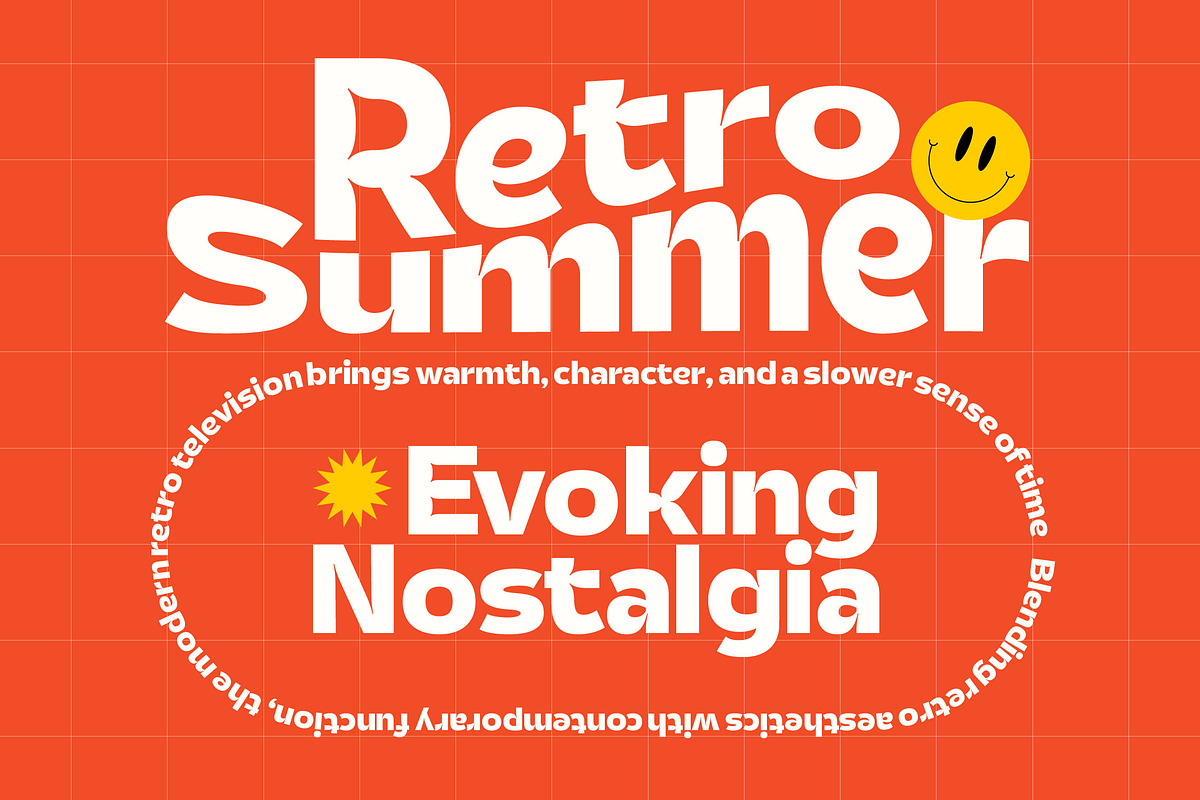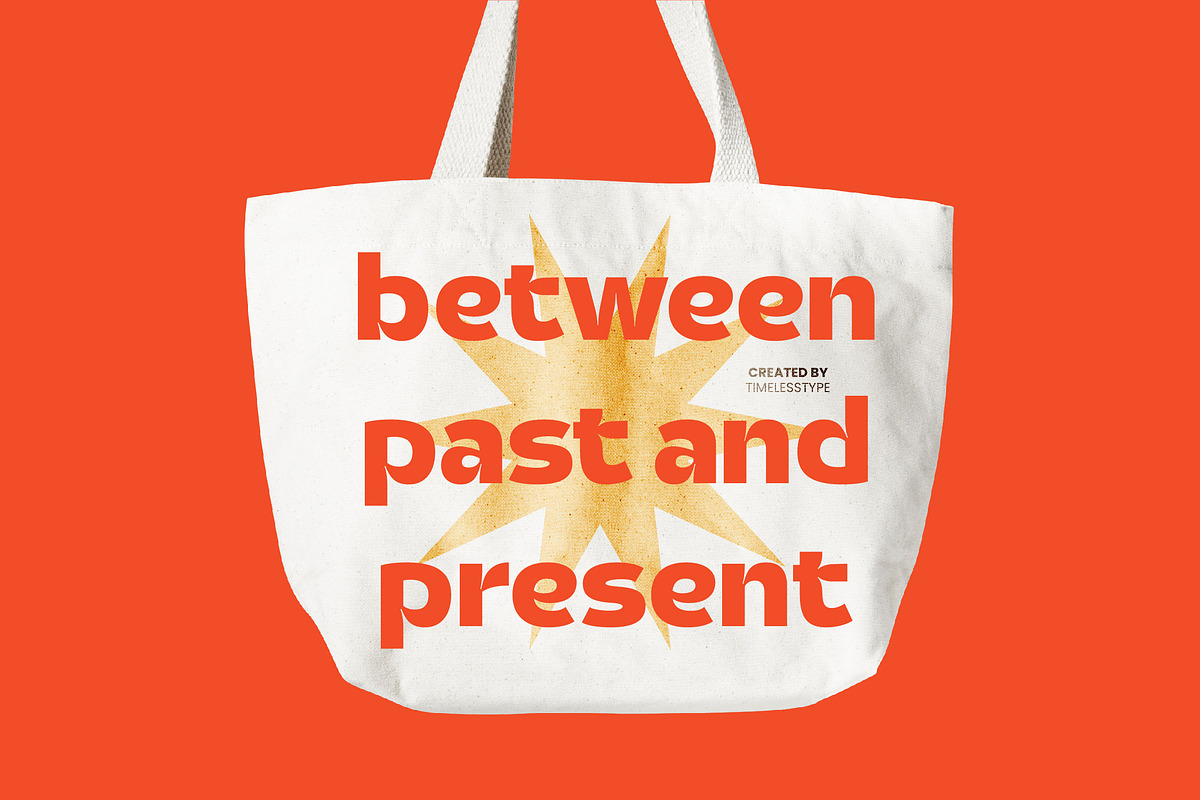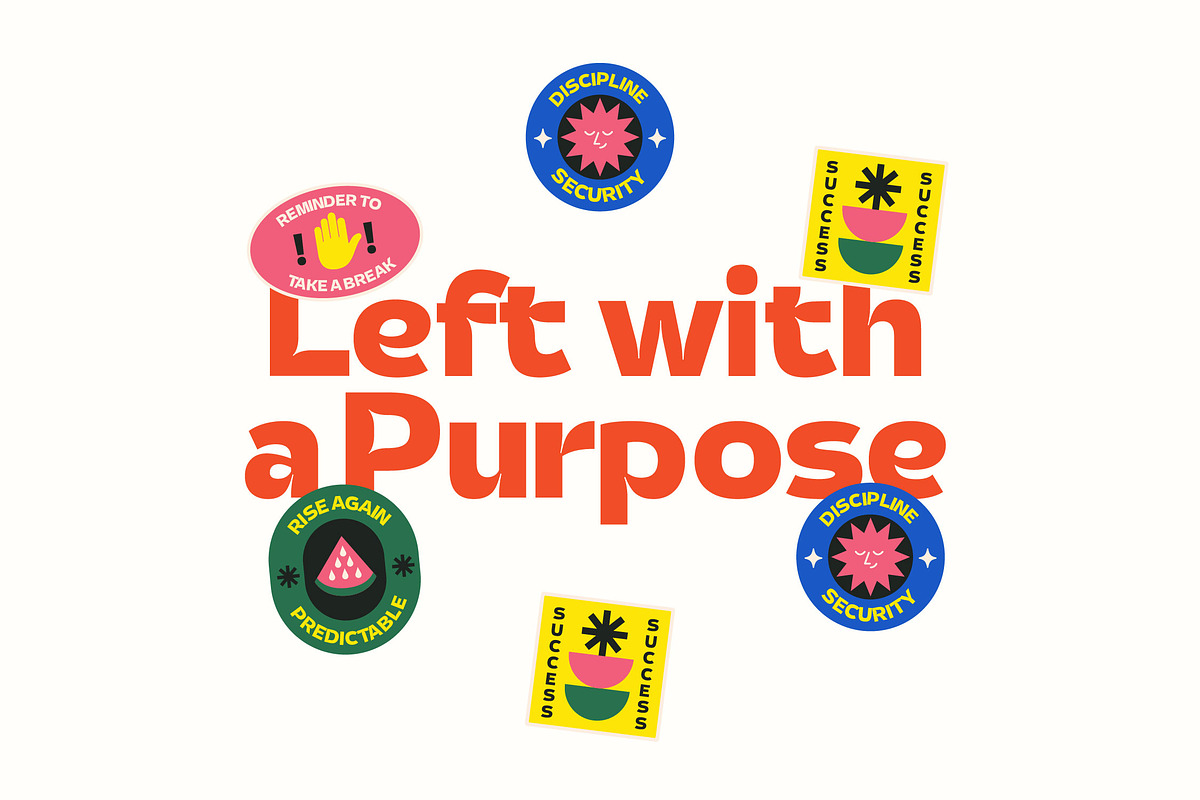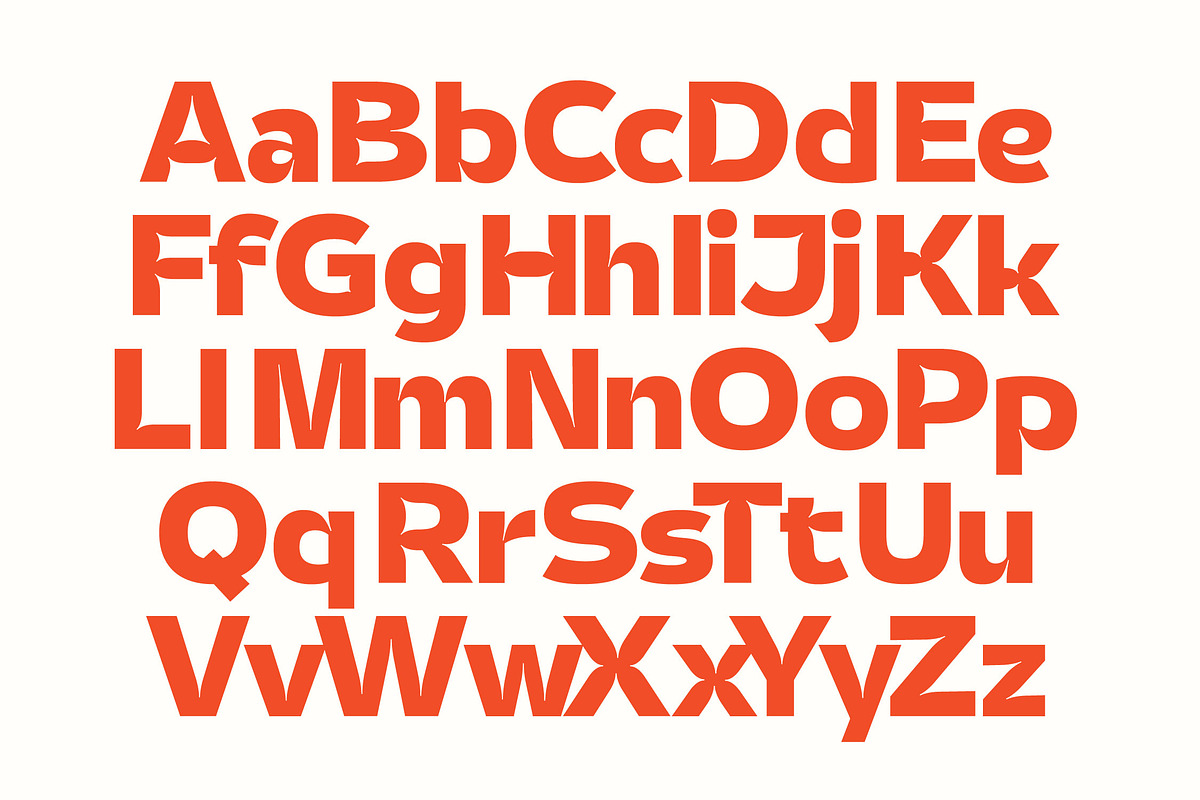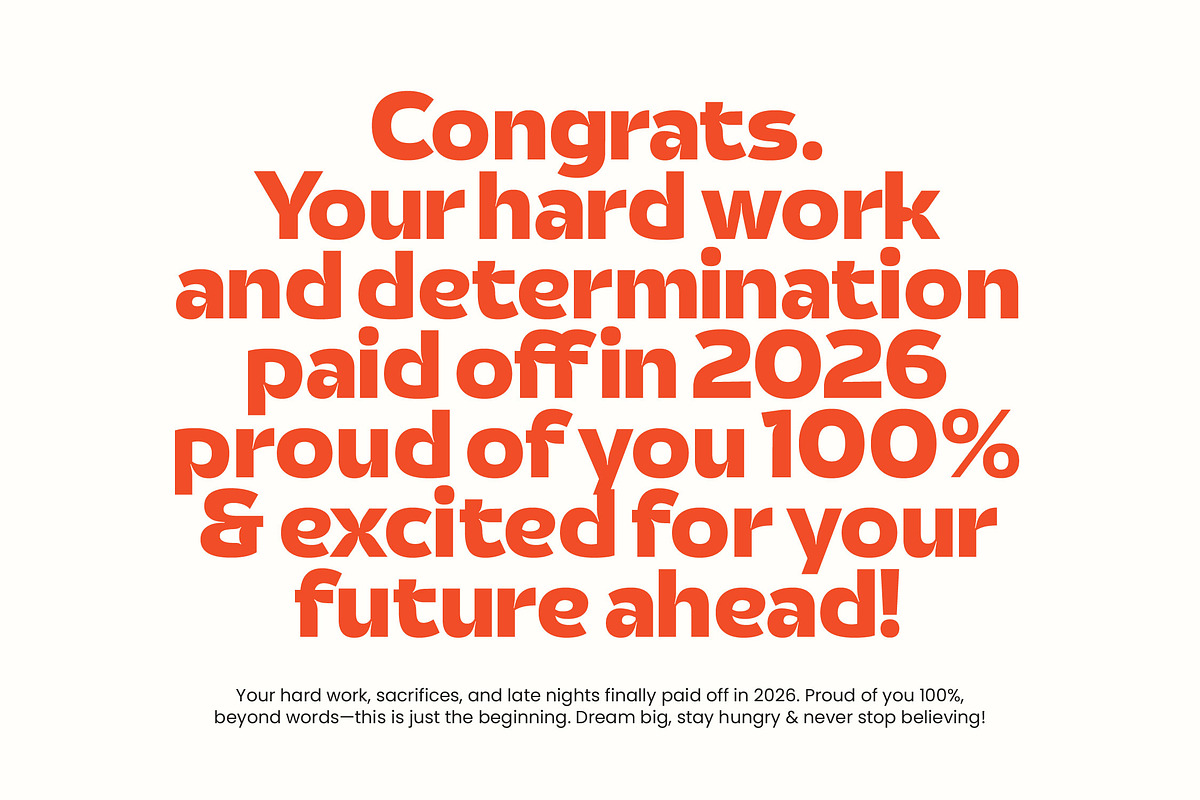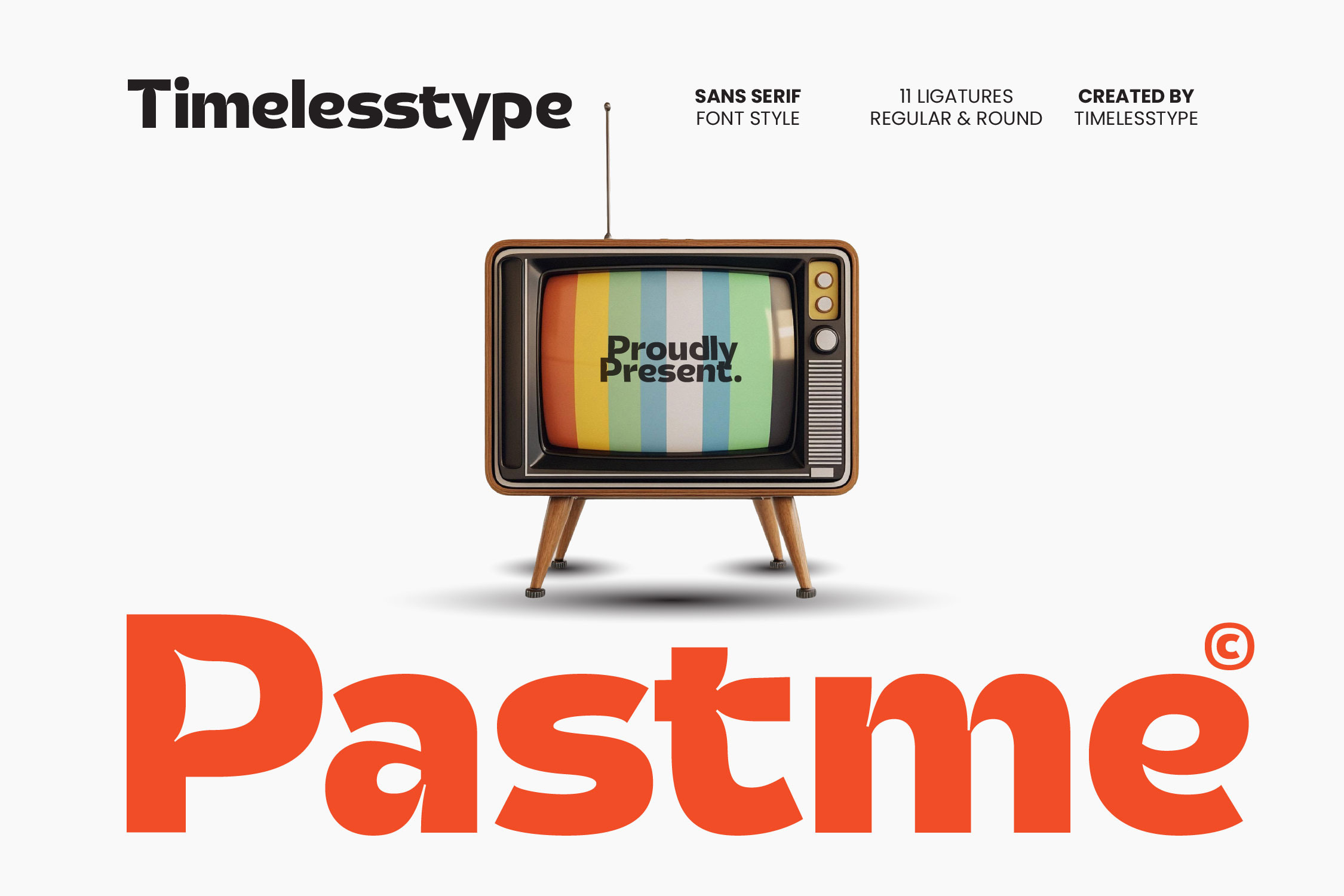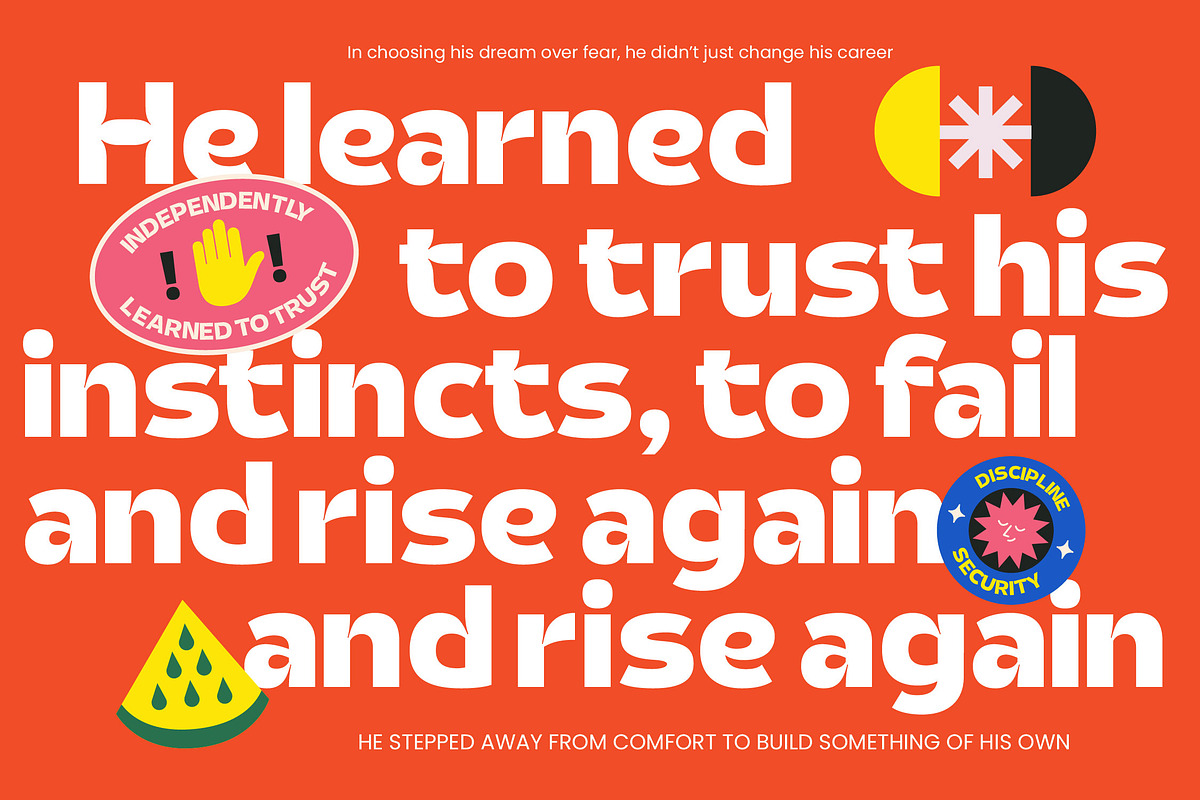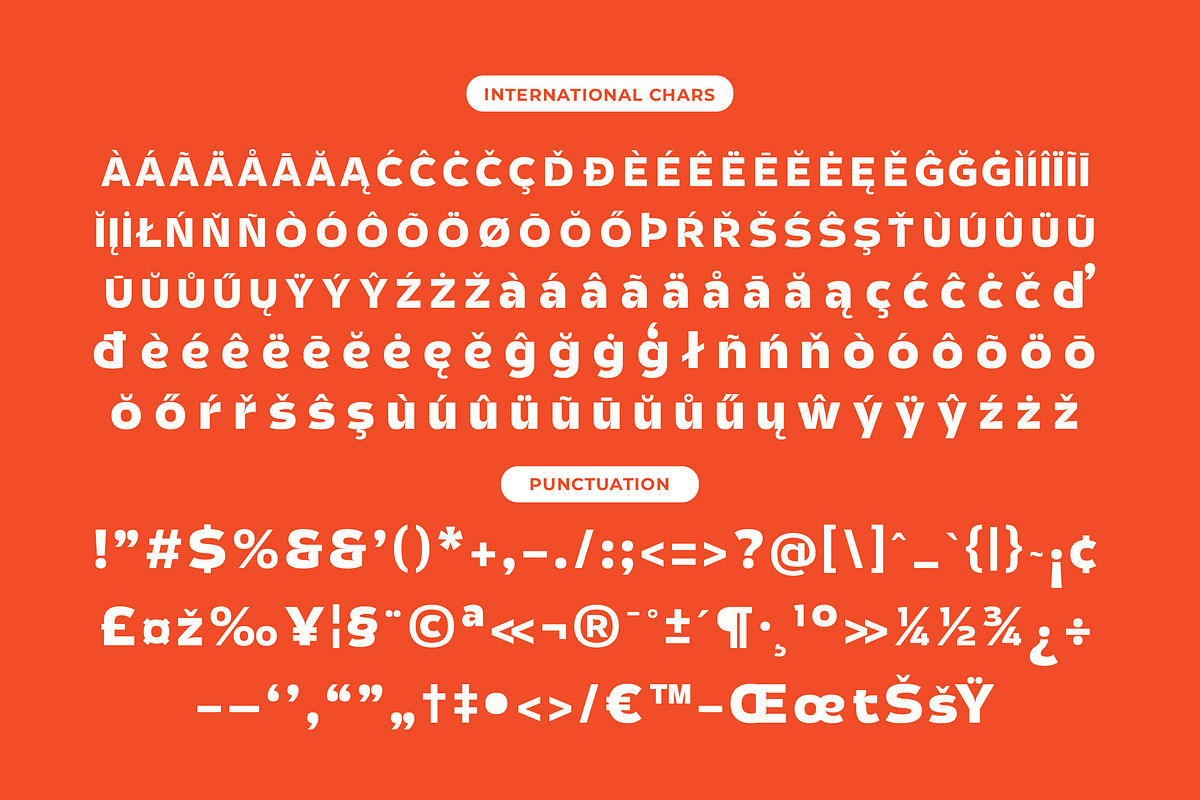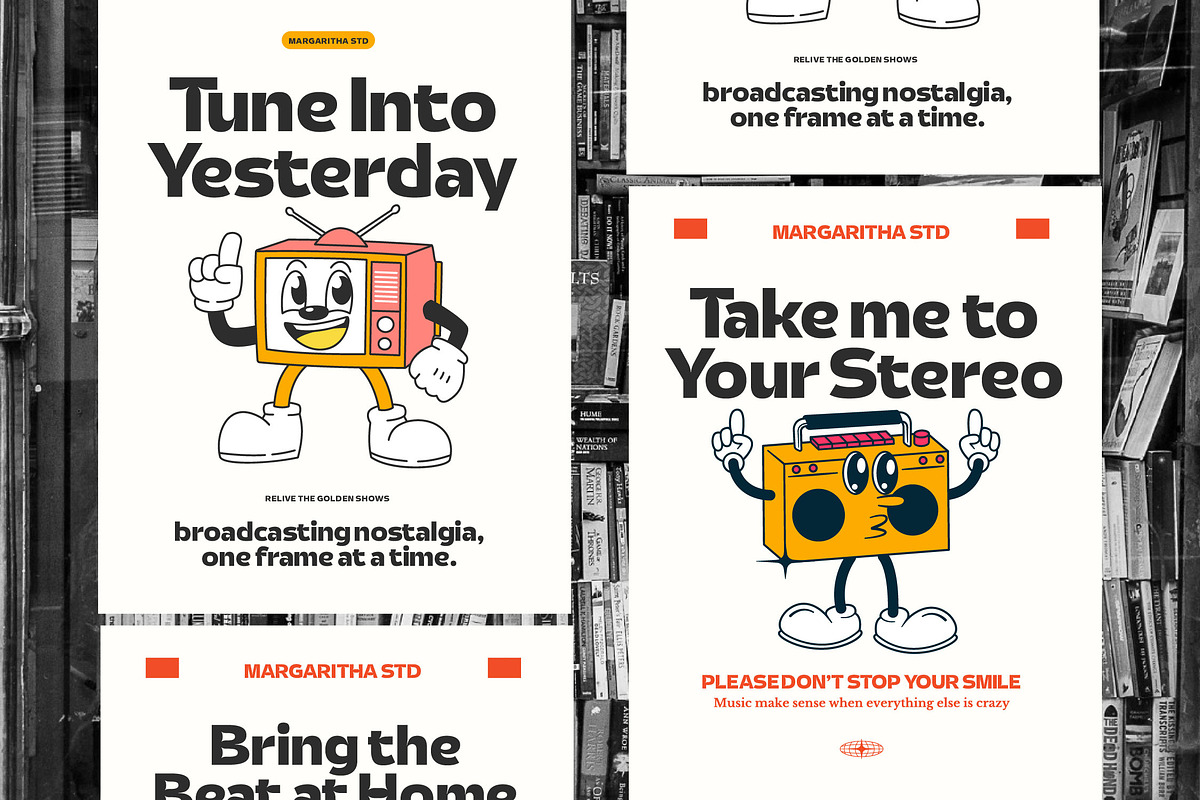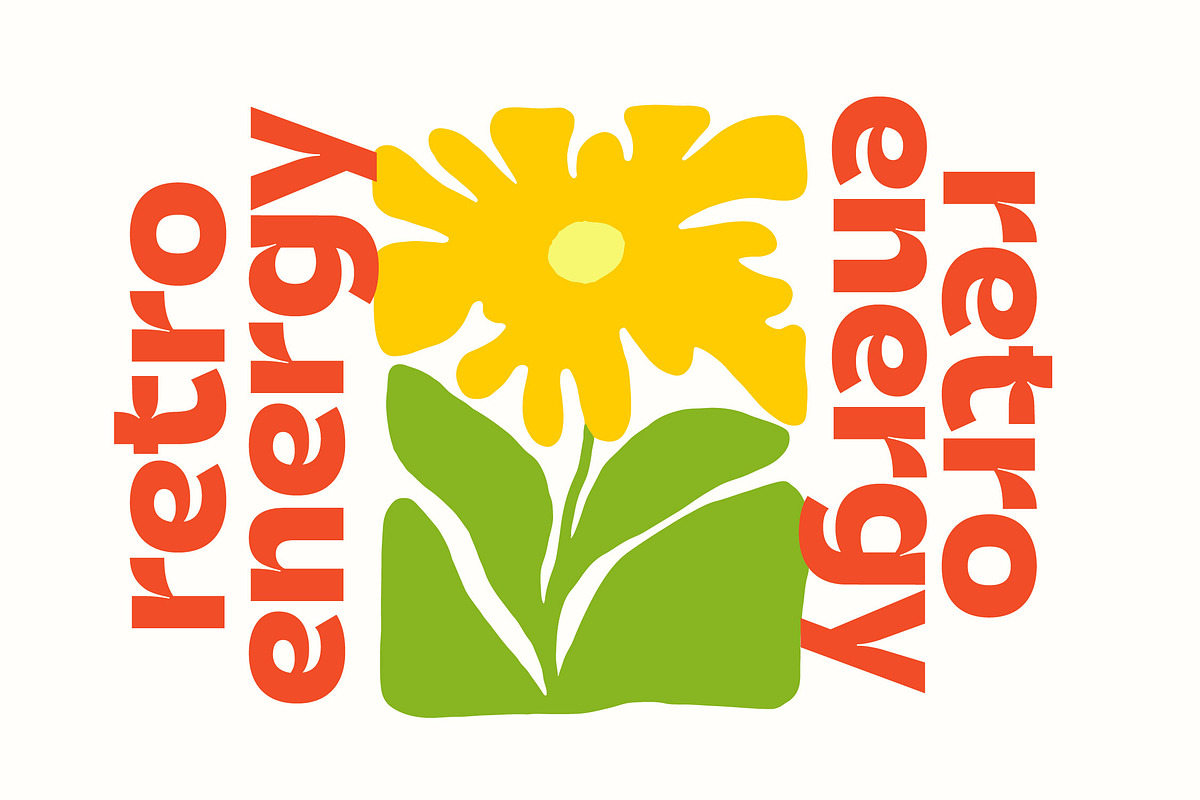
Pastme Retro Display Sans Font
Elevate your creative vision with Pastme, a typeface designed to bridge the gap between nostalgic charm and contemporary boldness. This striking sans-serif is crafted for those who want their message to resonate with undeniable presence and timeless appeal.
Drawing inspiration from the golden era of broadcast television and vintage signage, the font captures a sense of warmth and familiarity. It evokes the spirit of a bygone era while remaining perfectly tuned for the high-definition demands of today’s digital landscape.
This typeface delivers a powerful modern serif display vibe through its bold weights and unique character shapes, providing a luxury typography feel to any project. Its high-contrast serif elements in the ligatures ensure an editorial font quality that guarantees a significant branding impact.
Perfectly aligned with the current modern serif trend, this typeface brings a fresh perspective to editorial display fonts. It stands out as a piece of character-driven typography that satisfies the market's craving for designs that feel both retro and cutting-edge.
Whether you are working on a high-end logo design or comprehensive branding identity, this font is your go-to choice. It excels in editorial layouts, stands out on packaging, adds a unique touch to a modern wedding suite, and defines the aesthetic of avant-garde fashion labels.
The package includes a wide array of ligatures and creative alternates to help you customize every word. With its extensive multilingual support and international characters, it is ready for global distribution, while optional swashes add that extra decorative flair.